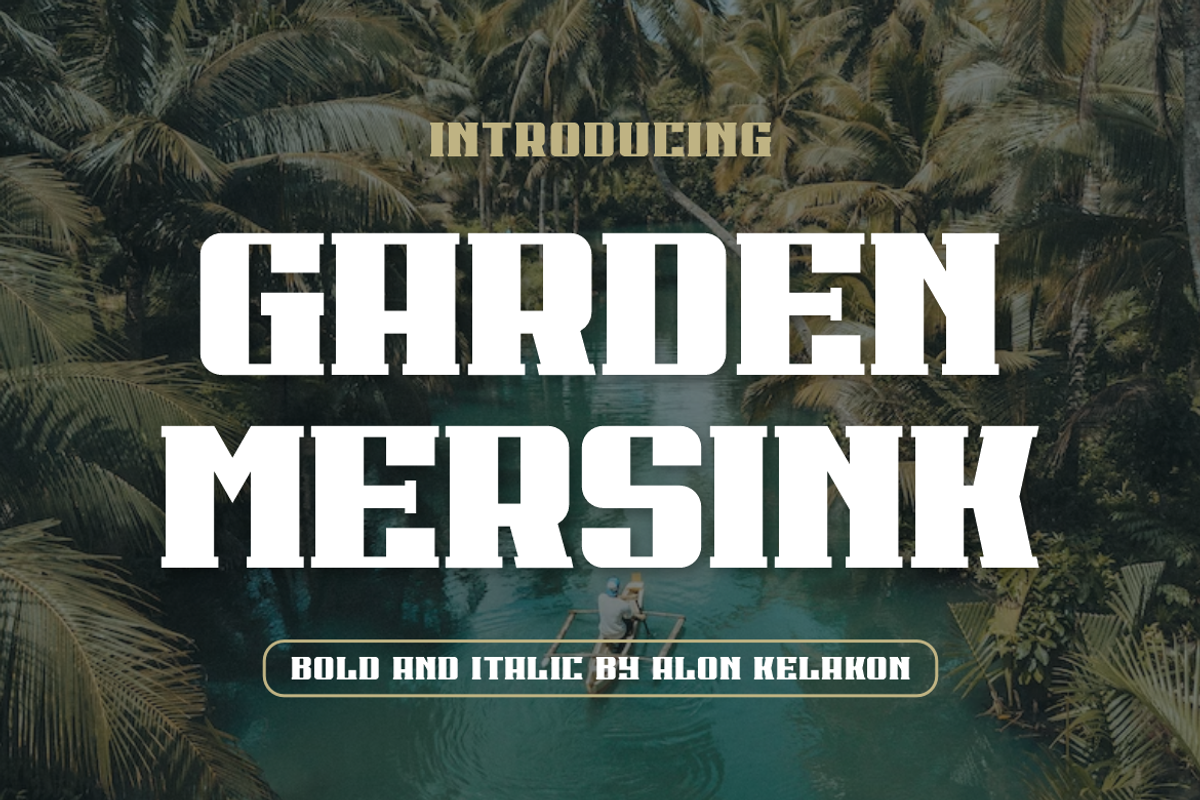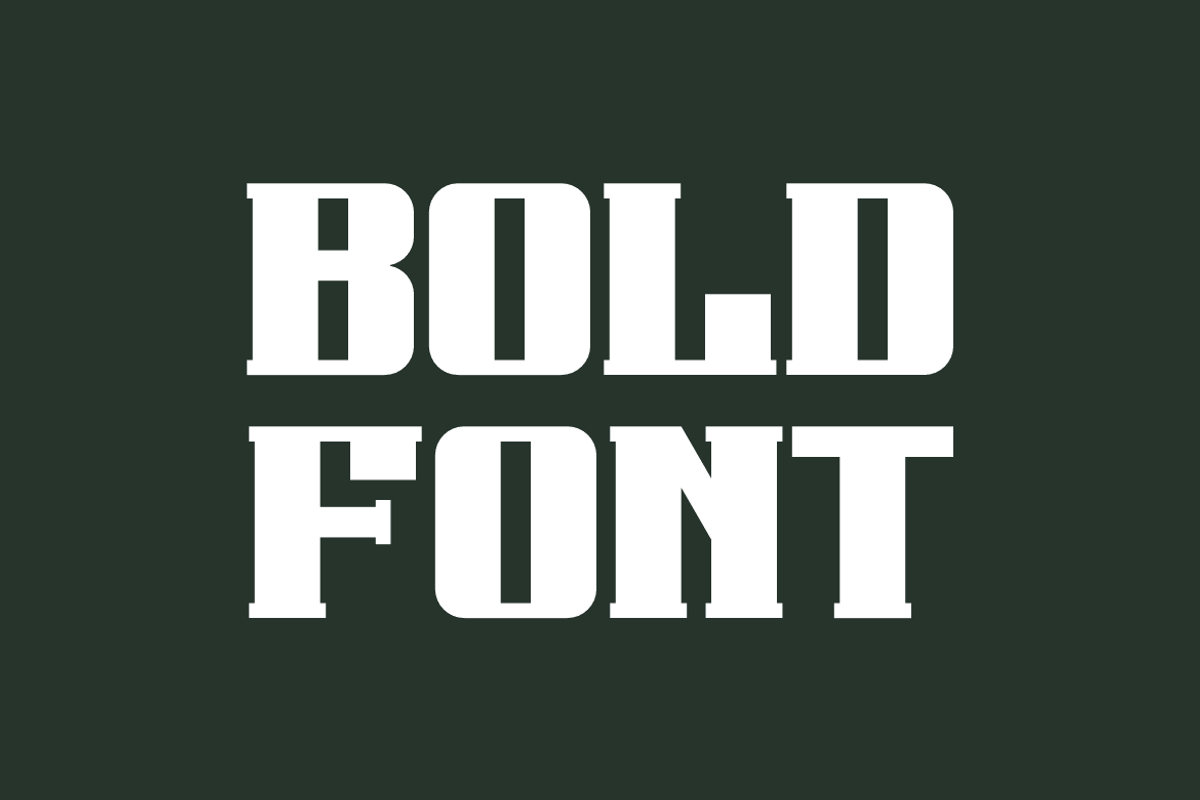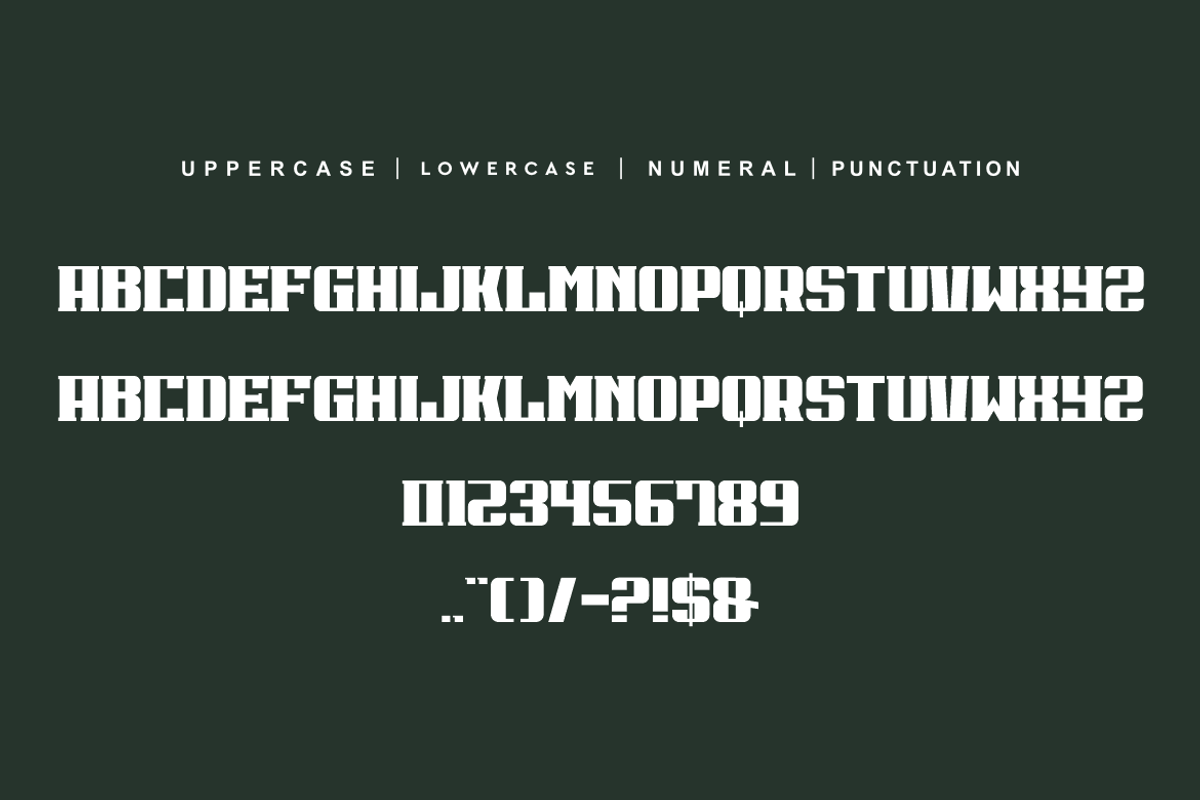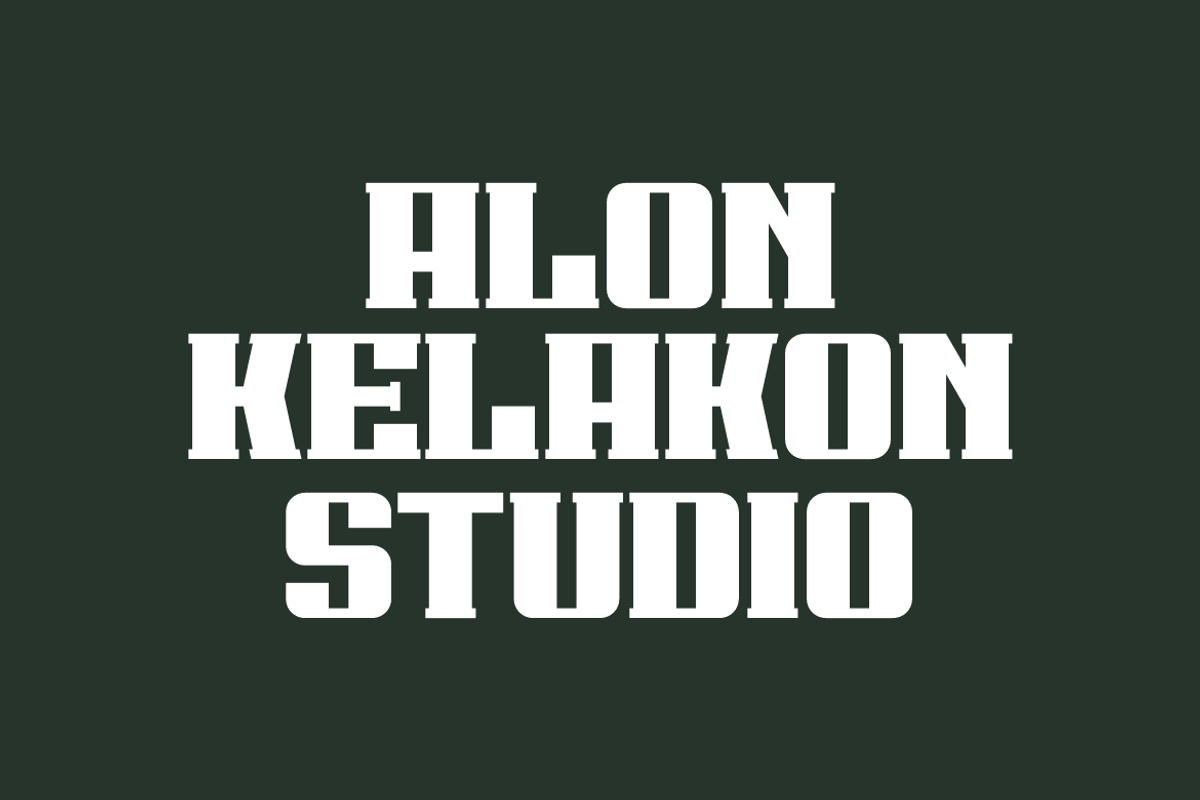
Garden Mersink
Garden Mersink Font is unique . Ready to use for your design like labeling, movie sceen, poster, movie title, gigs, album covers, logos, and much more.